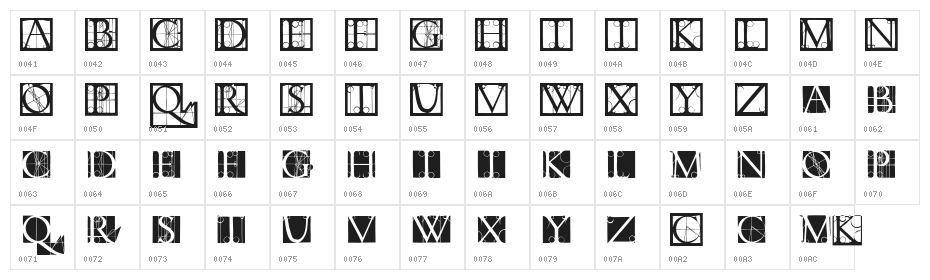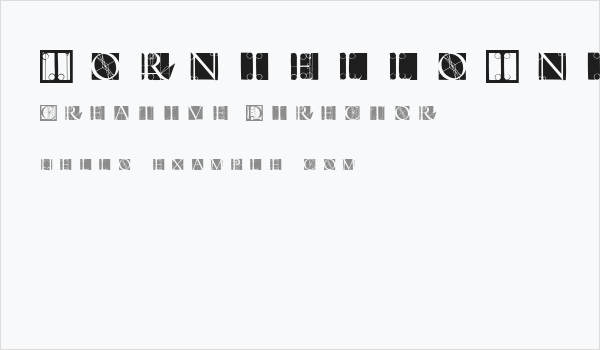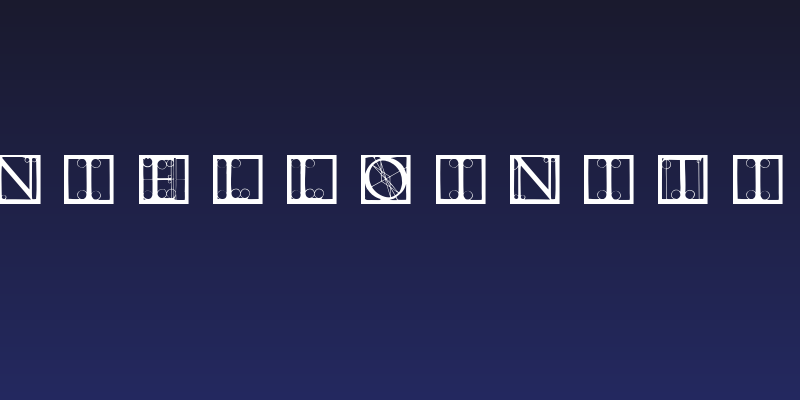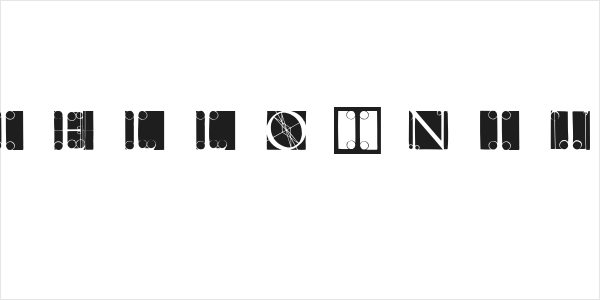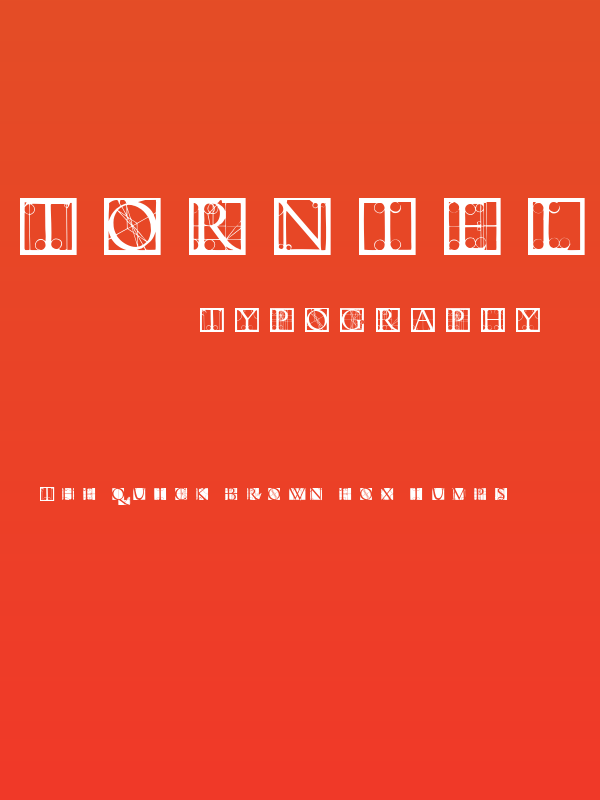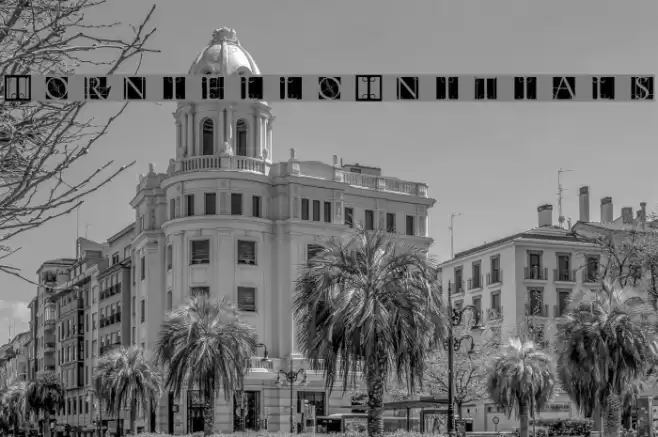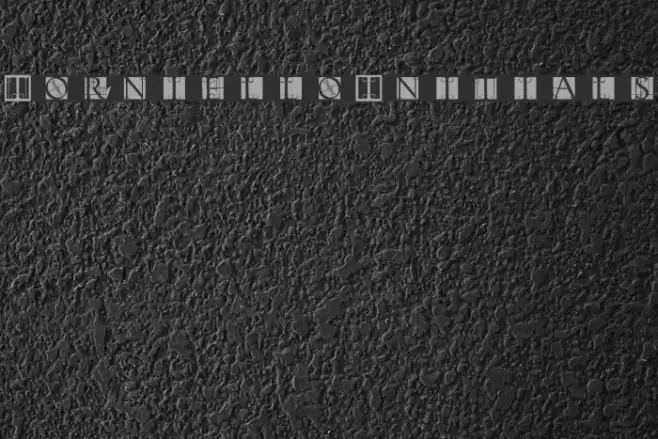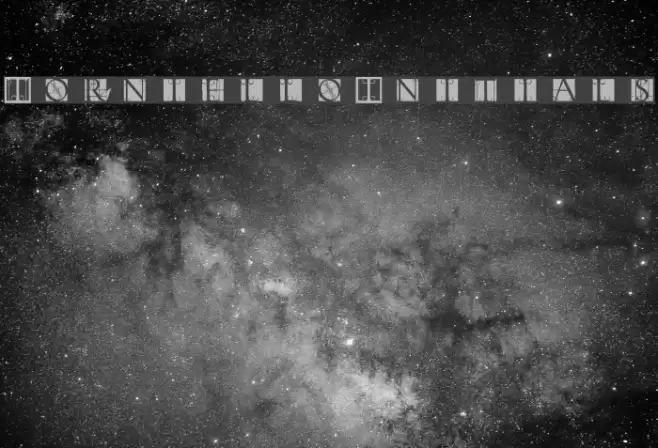
TornielloInitials Font
TornielloInitials Description
This font is a decorative and intricate design, featuring uppercase letters enclosed within square frames. Each letter is adorned with geometric patterns, including circles, lines, and triangles, creating a complex and artistic appearance. The style is reminiscent of illuminated manuscripts or architectural blueprints, with a strong emphasis on symmetry and balance. The letters are bold and striking, making them stand out as unique and eye-catching. This font is ideal for projects that require a touch of elegance and sophistication, such as invitations, posters, or branding materials.
| Proposed Projects | Ideal for invitations, posters, branding, and artistic projects requiring elegance. |